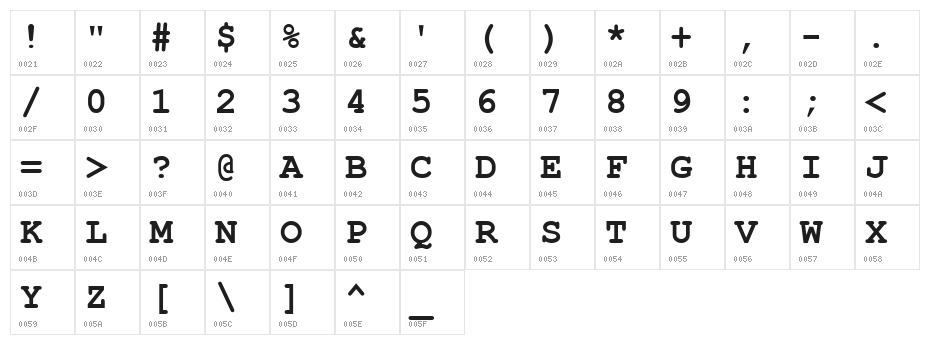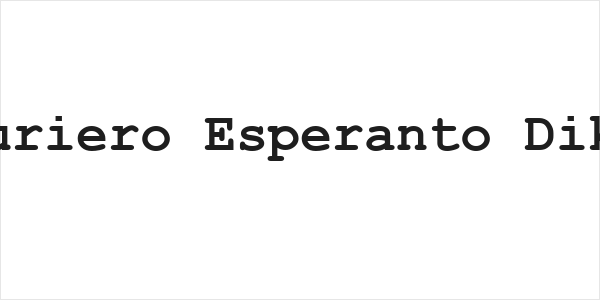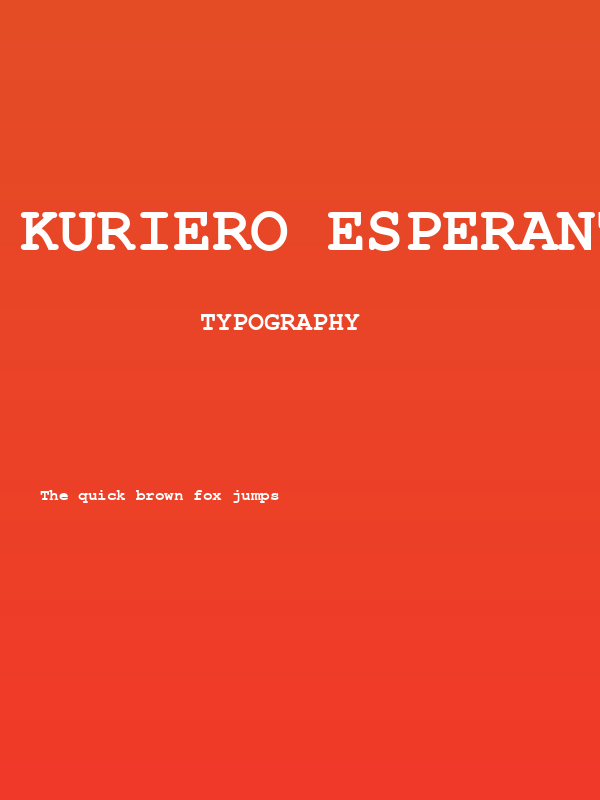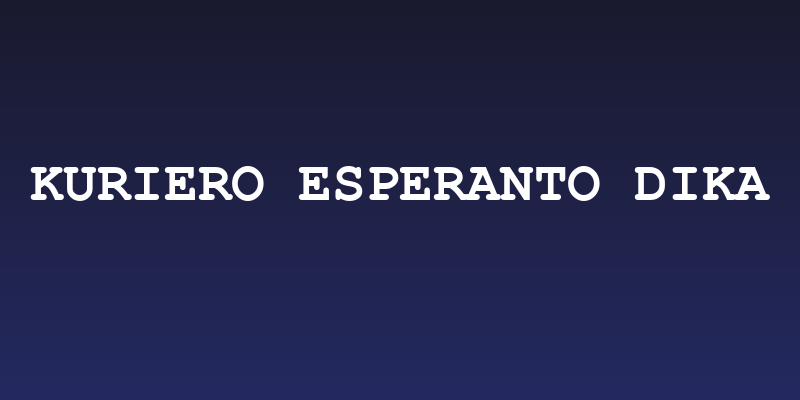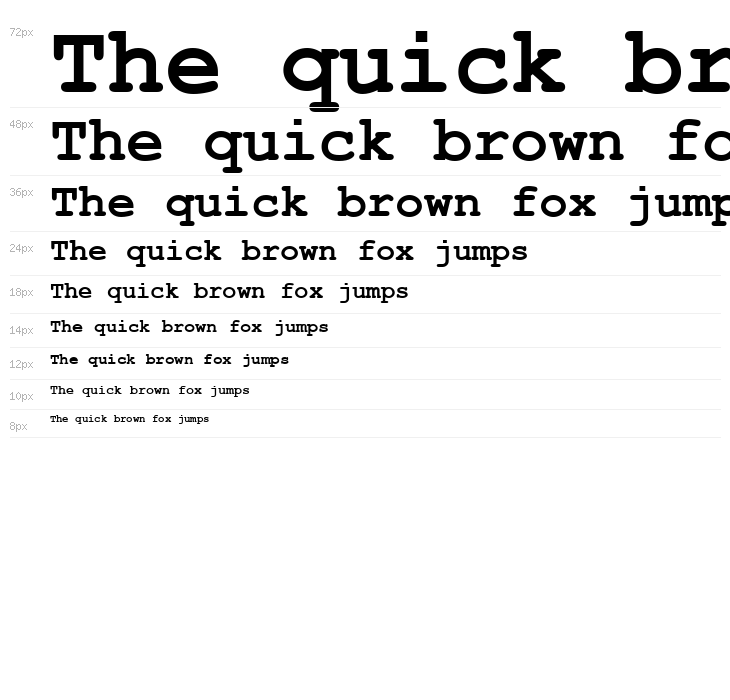
Kuriero Esperanto Dika Font
Kuriero Esperanto Dika Description
This font features a bold and robust design with thick, rounded serifs that give it a strong and confident appearance. The characters are well-defined with a consistent stroke width, providing a sense of stability and reliability. The uppercase letters are tall and commanding, while the lowercase letters maintain a friendly and approachable look. The numerals are clear and easy to read, making them suitable for various applications. Special characters are distinct and maintain the overall bold style, ensuring consistency throughout the font.